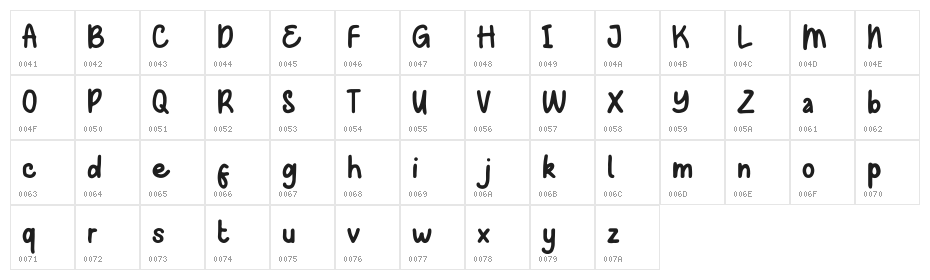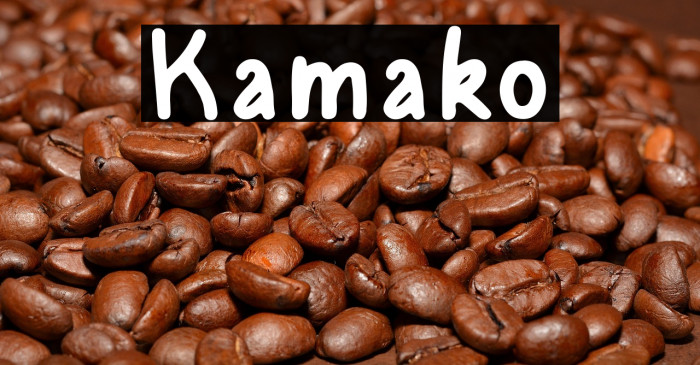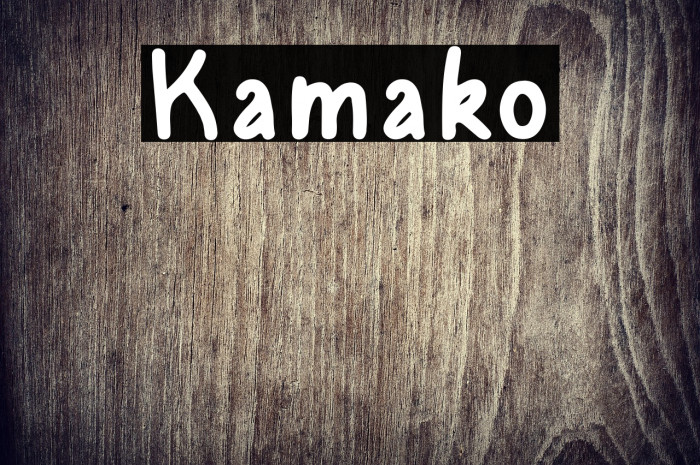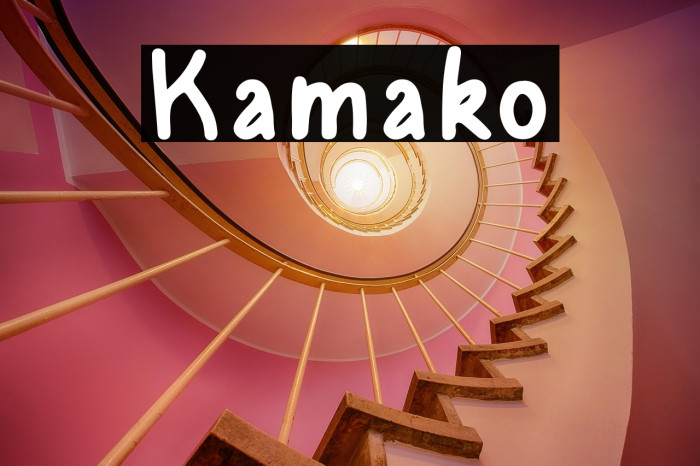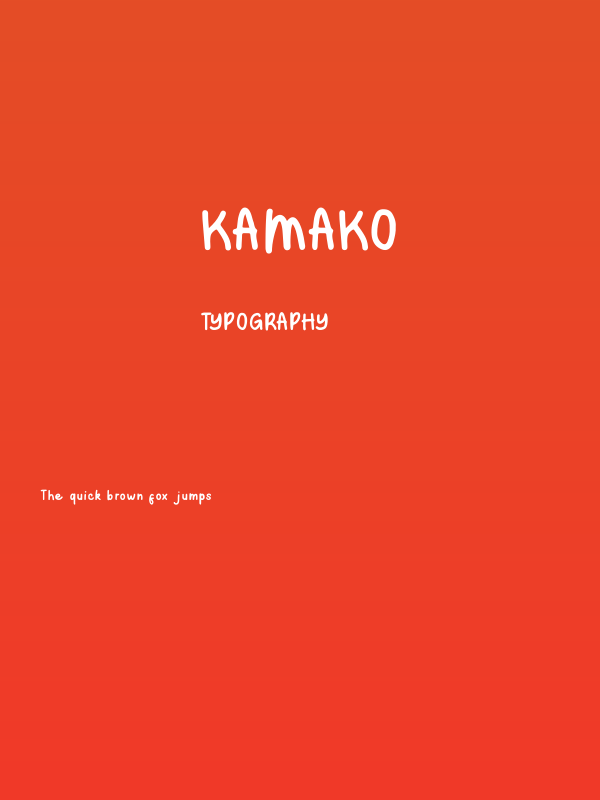
Kamako Font
Kamako Description
This playful and energetic font features a handwritten style with a bold and rounded appearance. The characters are slightly irregular, giving it a casual and friendly feel. The strokes are consistent in thickness, providing a uniform look across all letters. The uppercase and lowercase letters maintain a cohesive style, with a slight slant that adds to its dynamic nature. This font is perfect for projects that require a personal touch or a fun, informal vibe.
| Proposed Projects | Ideal for children's books, greeting cards, posters, and playful branding. |